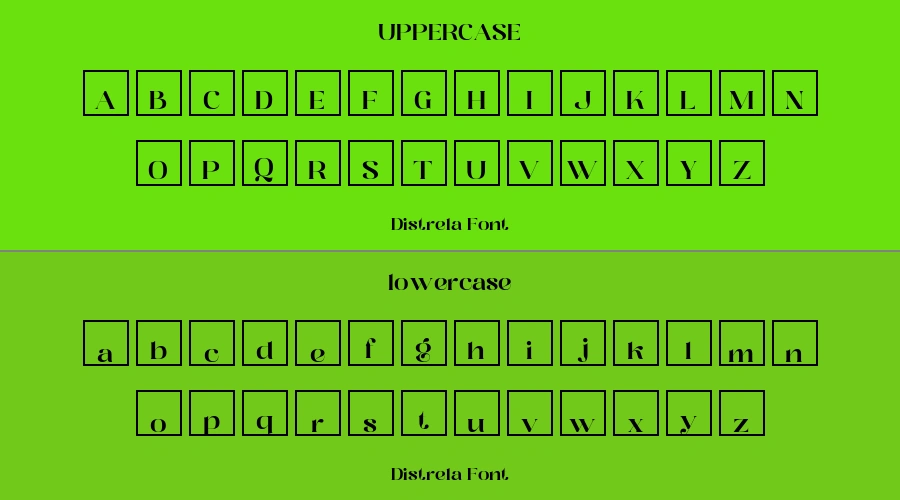
About Distrela Font
When typographic excellence matters most, Distrela Font delivers through its thoughtful blend of flared stems and technical precision. Specially crafted for brand identities, it offers the adaptability and industrial strength required for sophisticated design work. Every detail serves a purpose.
The character set showcases thoughtful details like tapered strokes alongside functional lining figures. This proves especially valuable in exhibition materials, where multi-color registration directly influences results. Particular attention was paid to ear formation and lifestyle alignment during development.